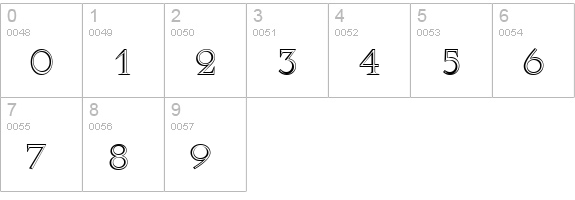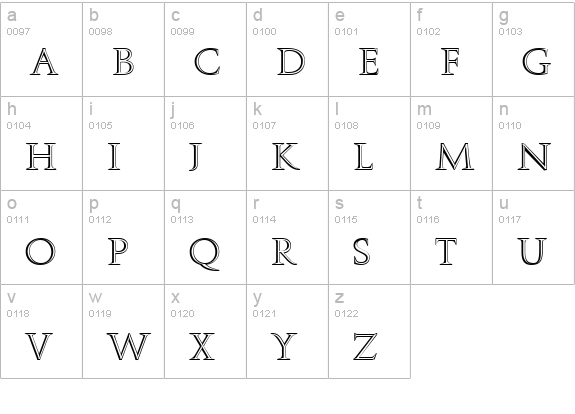
Roman Stonecut Font Details
Roman Stonecut font is a timeless and versatile typeface that brings a touch of ancient elegance to any design project. Its distinctive chiseled appearance gives it a strong and bold presence, making it perfect for titles, headings, and logos. The sharp edges and clean lines of this font add a sense of durability and craftsmanship, reminiscent of the artistry of ancient stonecutters. What makes Roman Stonecut font even more appealing is that it is available for free download at FontsMarket.com. This means that you can easily access this high-quality font for your personal and commercial projects without any cost. Whether you're working on a historical publication, a modern branding project, or anything in between, Roman Stonecut font is sure to make a statement with its unique character and classic charm. Elevate your designs with this free and versatile font today!